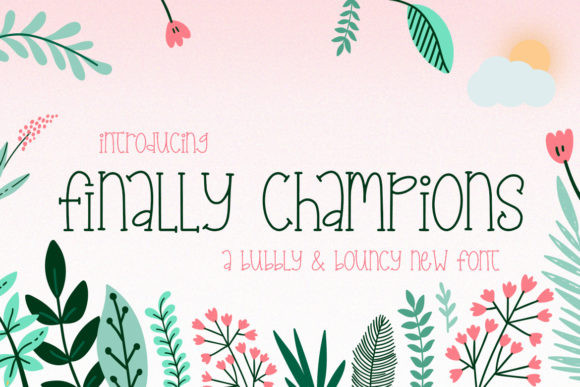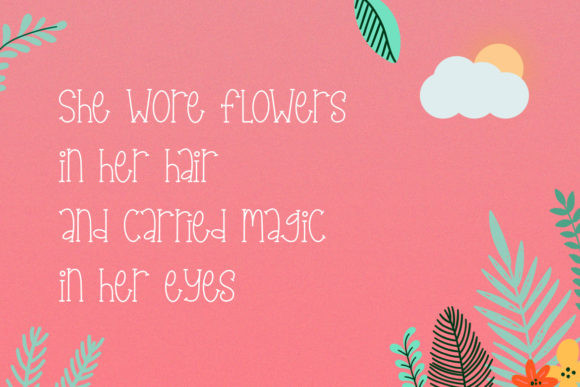
Finally Champions Font
Finally Champions is an interesting and quirky serif font. Suitable to a wide variety of designs due to its neat and simple style, Finally Champions has the potential to become your favorite go-to font, no matter the occasion!